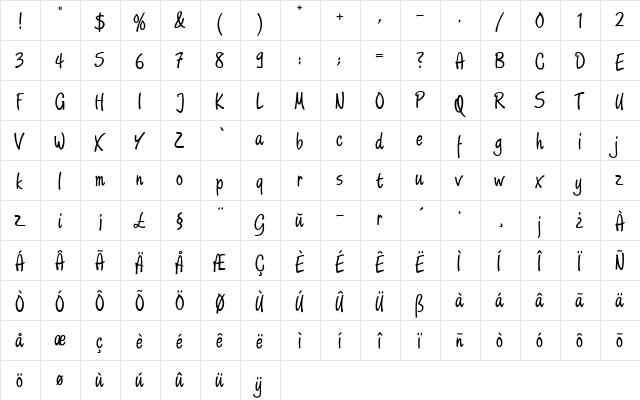
ScriptureEF Regular
| Foundry | Elsner+Flake Designstudios |
Design Context for ScriptureEF Typeface
ScriptureEF flows with the natural rhythm of handwritten lettering, making it ideal for designs that call for warmth and personal expression.
Font Pairing: Combine ScriptureEF with a simple geometric sans for maximum contrast — the tension between flowing curves and clean structure is a classic typographic pairing.
Pro Tip: Use ScriptureEF for short runs of text — names, titles, or taglines. Extended body copy in script faces tires the eye quickly.